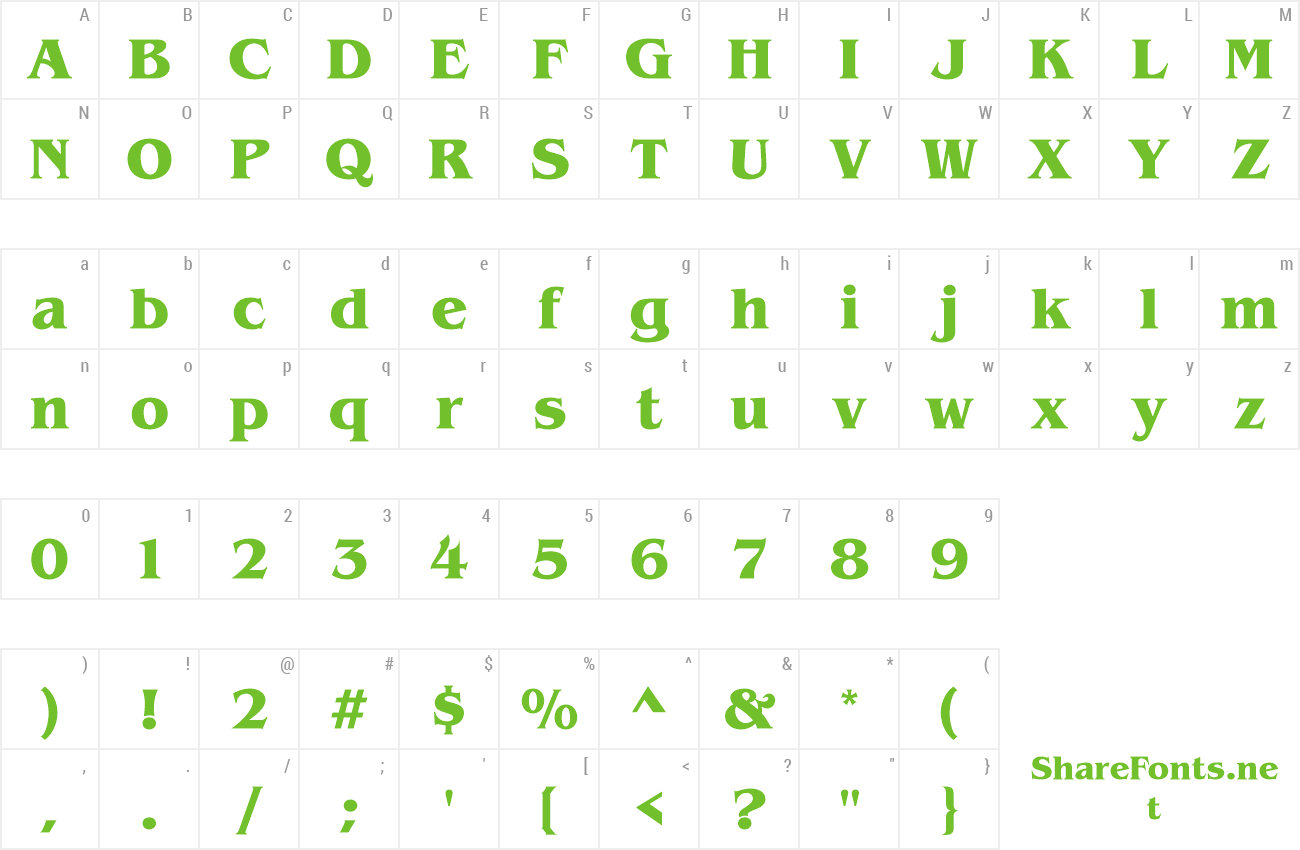
Itc Benguiat Font Free
Itc Benguiat Font Free - You can use this font for your personal and professional work. Web itc benguiat font is a decorative font style that has a condensed and attractive font appearance. Web itc benguiat condensed bold is a bold opentype font. Web added by pndes gndes (2 styles) newly added fonts. Web download itcbenguiat for free, view sample text, rating and more on fontsgeek.com. Discover other fonts in serif.
Discover other fonts in serif. Web download itcbenguiat for free, view sample text, rating and more on fontsgeek.com. You can use this font for your personal and professional work. Web itc benguiat font is a decorative font style that has a condensed and attractive font appearance. Web itc benguiat condensed bold is a bold opentype font. Web added by pndes gndes (2 styles) newly added fonts.
Discover other fonts in serif. Web download itcbenguiat for free, view sample text, rating and more on fontsgeek.com. Web itc benguiat font is a decorative font style that has a condensed and attractive font appearance. Web added by pndes gndes (2 styles) newly added fonts. You can use this font for your personal and professional work. Web itc benguiat condensed bold is a bold opentype font.
Web added by pndes gndes (2 styles) newly added fonts. Discover other fonts in serif. You can use this font for your personal and professional work. Web itc benguiat condensed bold is a bold opentype font. Web itc benguiat font is a decorative font style that has a condensed and attractive font appearance.
Web itc benguiat font is a decorative font style that has a condensed and attractive font appearance. Discover other fonts in serif. You can use this font for your personal and professional work. Web added by pndes gndes (2 styles) newly added fonts. Web itc benguiat condensed bold is a bold opentype font.
You can use this font for your personal and professional work. Web itc benguiat font is a decorative font style that has a condensed and attractive font appearance. Web download itcbenguiat for free, view sample text, rating and more on fontsgeek.com. Web itc benguiat condensed bold is a bold opentype font. Web added by pndes gndes (2 styles) newly added.
Web itc benguiat condensed bold is a bold opentype font. Web itc benguiat font is a decorative font style that has a condensed and attractive font appearance. You can use this font for your personal and professional work. Discover other fonts in serif. Web added by pndes gndes (2 styles) newly added fonts.
You can use this font for your personal and professional work. Web download itcbenguiat for free, view sample text, rating and more on fontsgeek.com. Web itc benguiat condensed bold is a bold opentype font. Web itc benguiat font is a decorative font style that has a condensed and attractive font appearance. Discover other fonts in serif.
Web itc benguiat font is a decorative font style that has a condensed and attractive font appearance. You can use this font for your personal and professional work. Web download itcbenguiat for free, view sample text, rating and more on fontsgeek.com. Web itc benguiat condensed bold is a bold opentype font. Discover other fonts in serif.
Identifont ITC Benguiat Gothic
Web itc benguiat font is a decorative font style that has a condensed and attractive font appearance. Web added by pndes gndes (2 styles) newly added fonts. You can use this font for your personal and professional work. Discover other fonts in serif. Web itc benguiat condensed bold is a bold opentype font.
ITC Benguiat® Bold
Web added by pndes gndes (2 styles) newly added fonts. Web itc benguiat condensed bold is a bold opentype font. Web download itcbenguiat for free, view sample text, rating and more on fontsgeek.com. Discover other fonts in serif. You can use this font for your personal and professional work.
Itc Benguiat Font Free Download
Discover other fonts in serif. You can use this font for your personal and professional work. Web itc benguiat condensed bold is a bold opentype font. Web added by pndes gndes (2 styles) newly added fonts. Web itc benguiat font is a decorative font style that has a condensed and attractive font appearance.
ITC Benguiat Font Family Free Download Fonts Empire
Discover other fonts in serif. Web itc benguiat condensed bold is a bold opentype font. You can use this font for your personal and professional work. Web itc benguiat font is a decorative font style that has a condensed and attractive font appearance. Web download itcbenguiat for free, view sample text, rating and more on fontsgeek.com.
Web itc benguiat condensed bold is a bold opentype font. Web added by pndes gndes (2 styles) newly added fonts. Discover other fonts in serif. Web download itcbenguiat for free, view sample text, rating and more on fontsgeek.com.